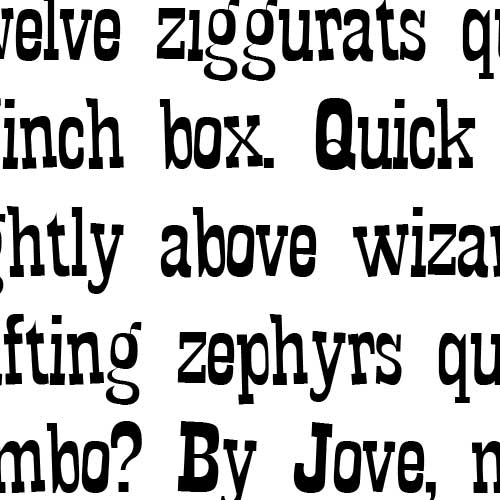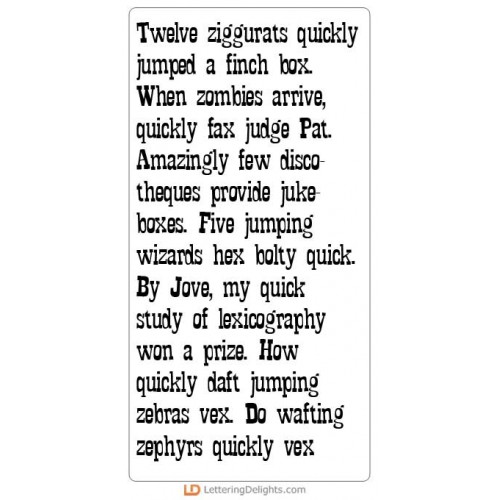
LD Wanted Funky - Font
Add a quirky old west flavor to your lettering projects. The off-balanced block letters of this "Wanted" font are reminiscent of western posters and signs, with a unique twist. It's a fun choice for cowboy scrapbook pages and cards.